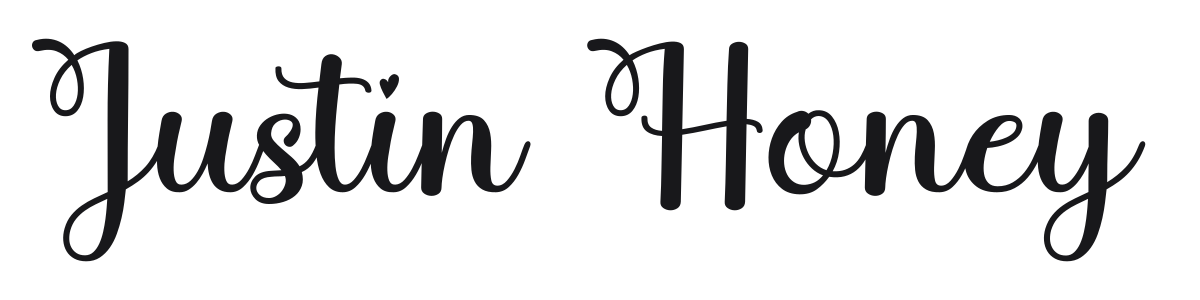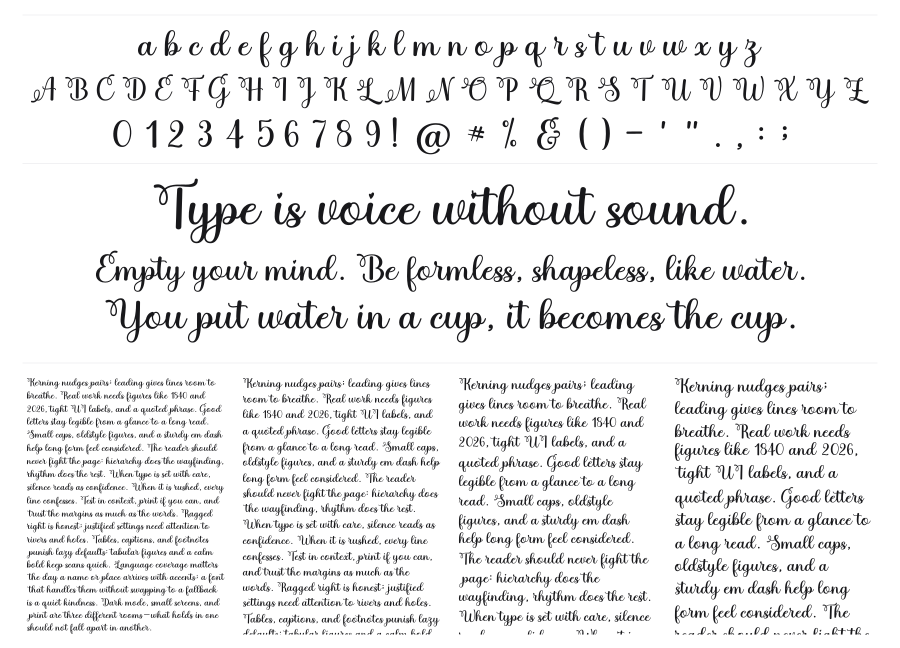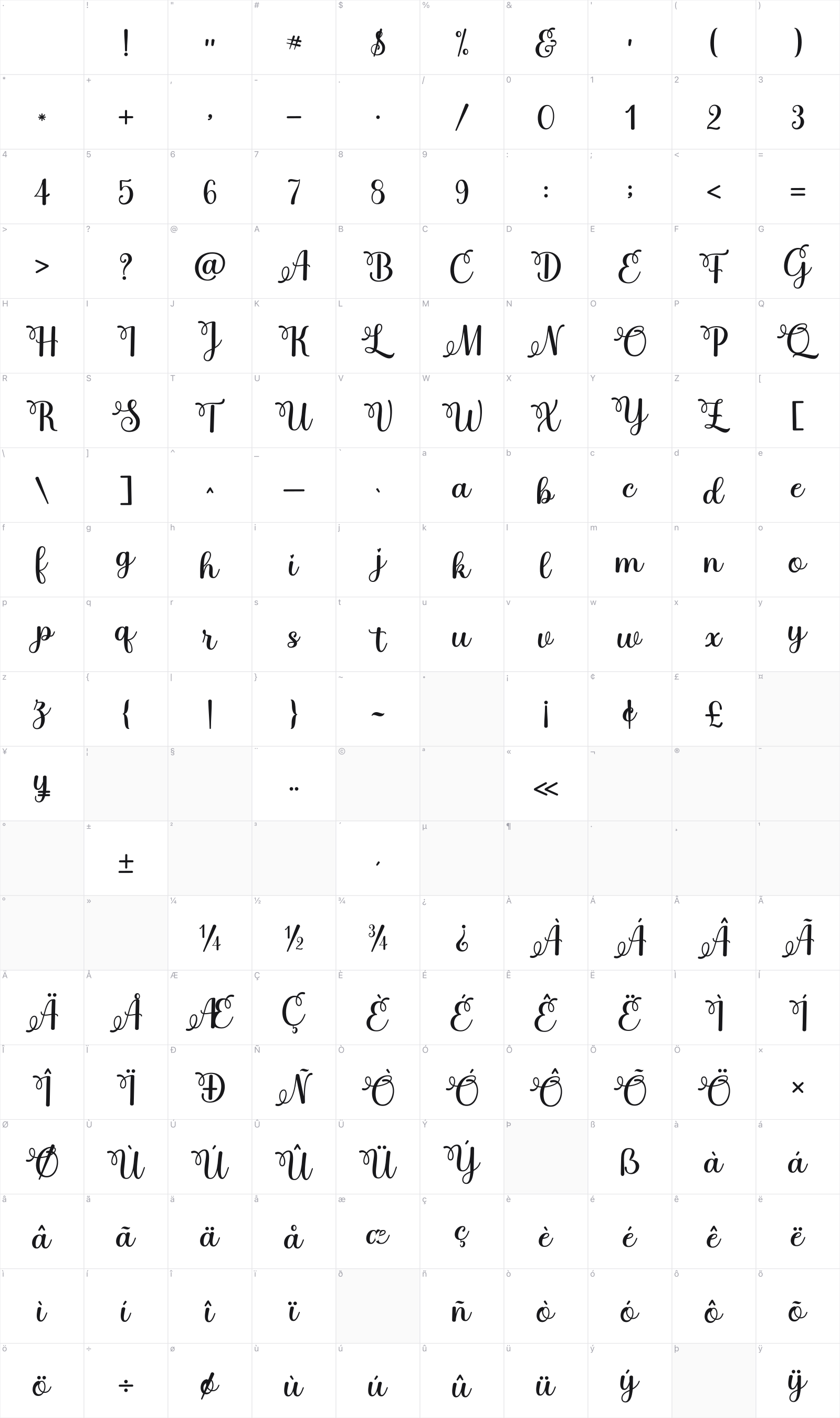
Justin Honey
Justin HoneyLike is a bold, flowing casual script from Romie Creative with looped ascenders and sweet terminal details that give it genuine warmth. The generous weight and bouncy rhythm make it easy to read at display sizes without losing its handcrafted feel. It fits naturally into branding for lifestyle, beauty, and food contexts where personality matters.